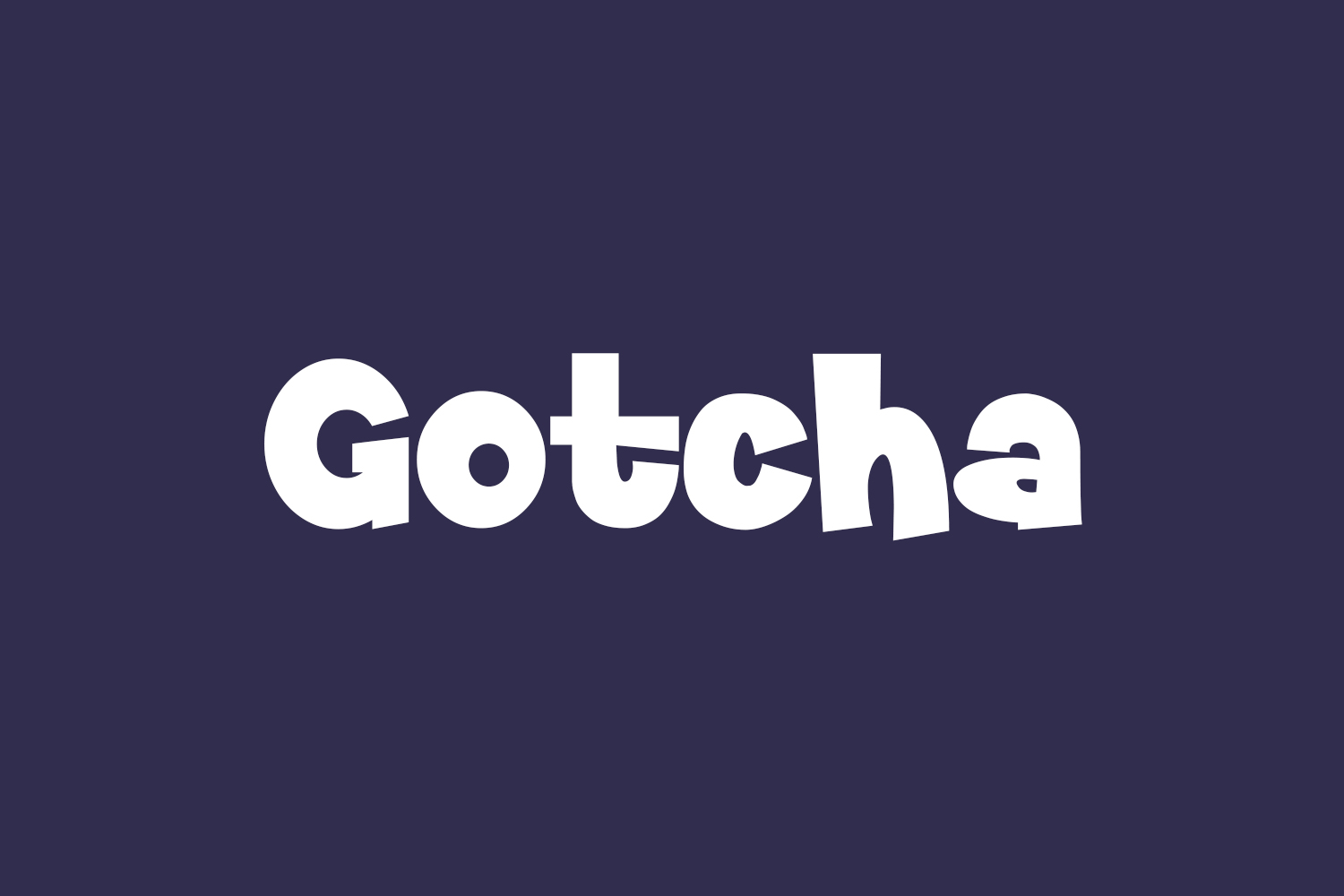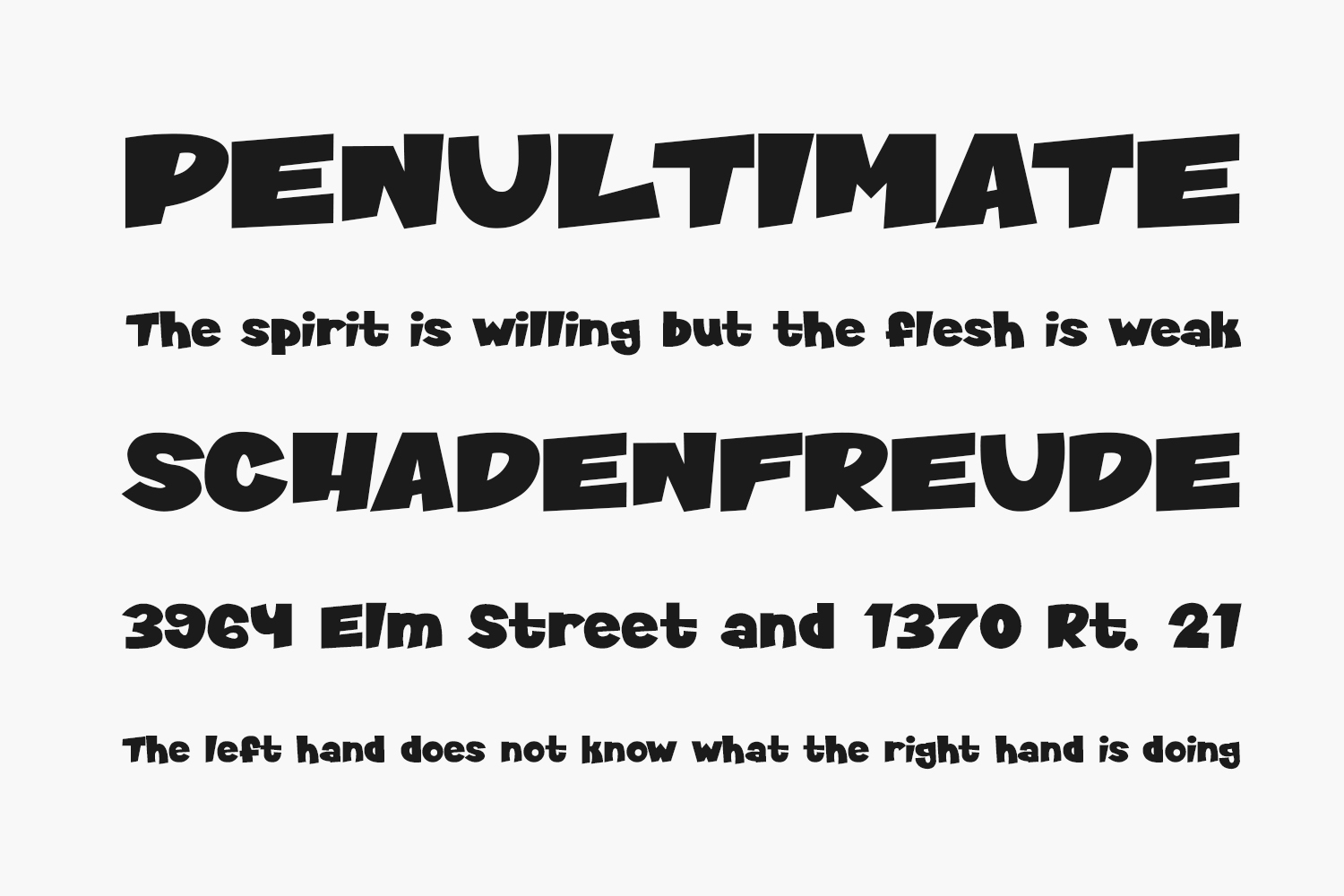
Gotcha Free Font is a cool, friendly, and thick lettered display font. Whether you are using it for cartoon-related designs, children’s games, quotes, titles, brand names, book covers, posters, or just any creation that requires a touch of joy, this font is a great choice. Gotcha Free Font was designed by Tokopress and is free for personal use only. Please purchase the full version for commercial use.